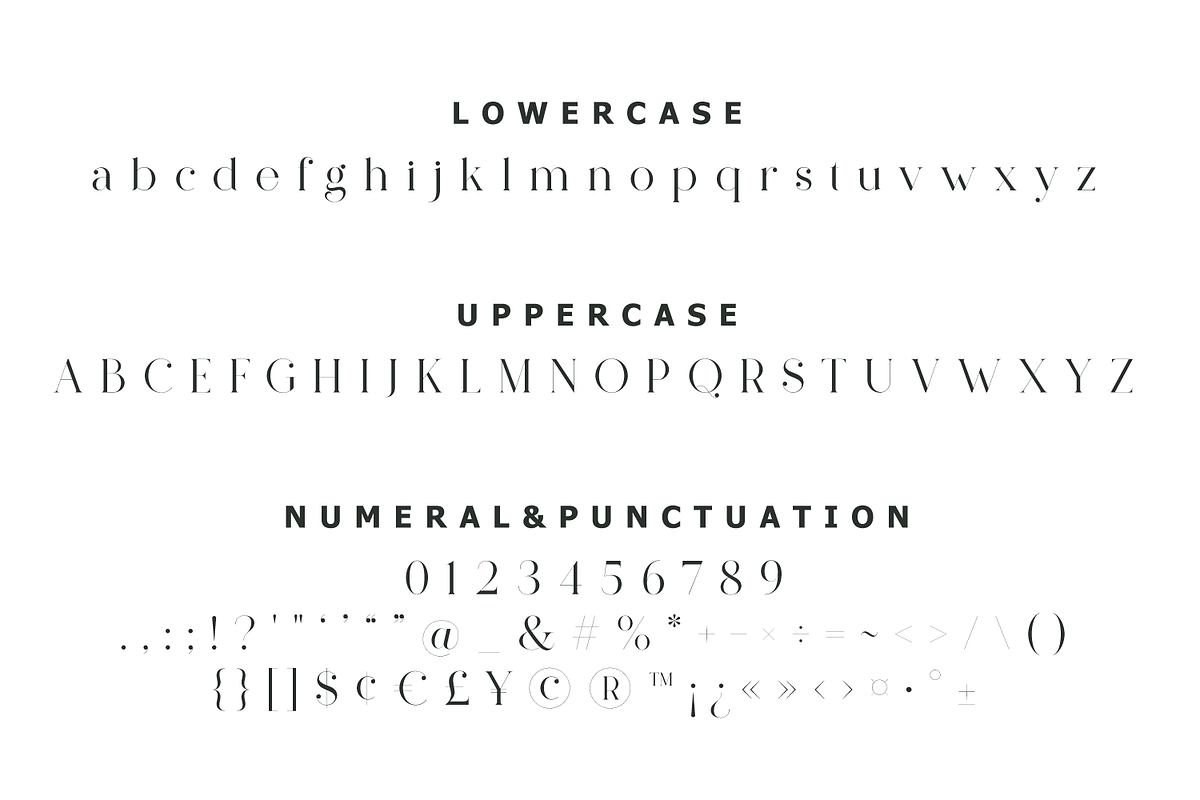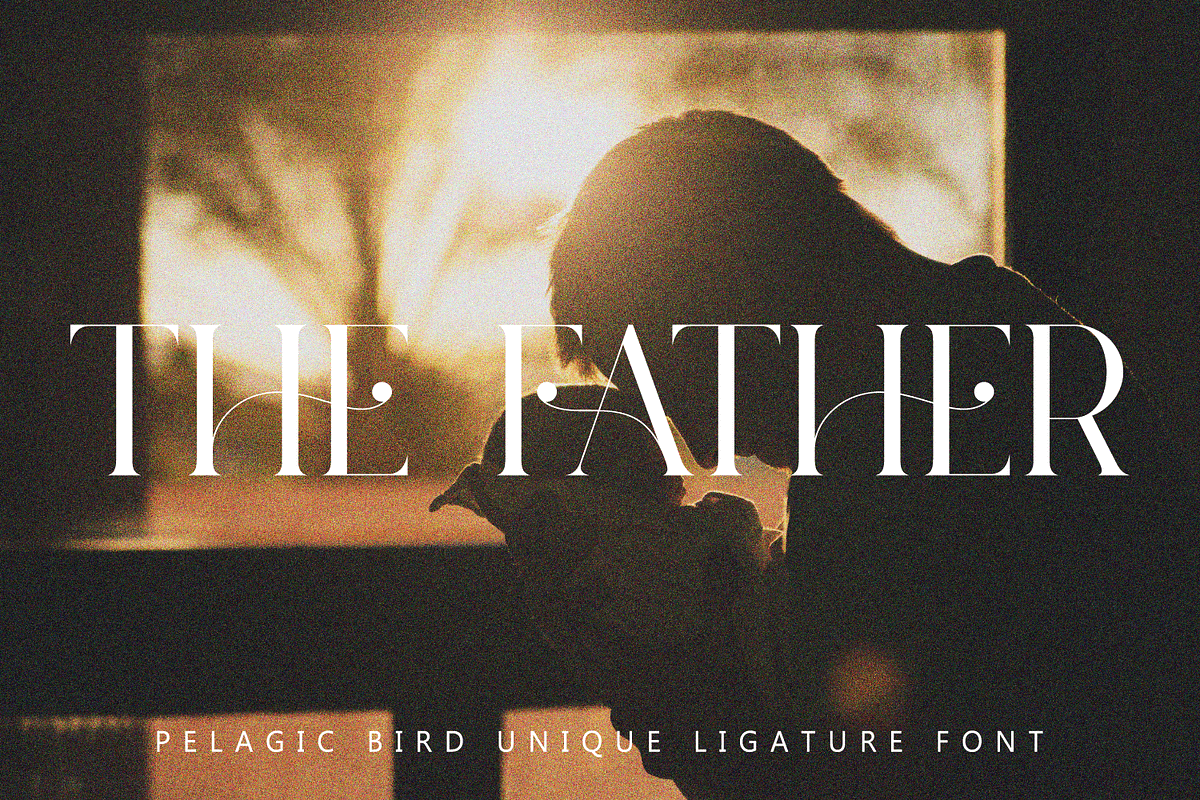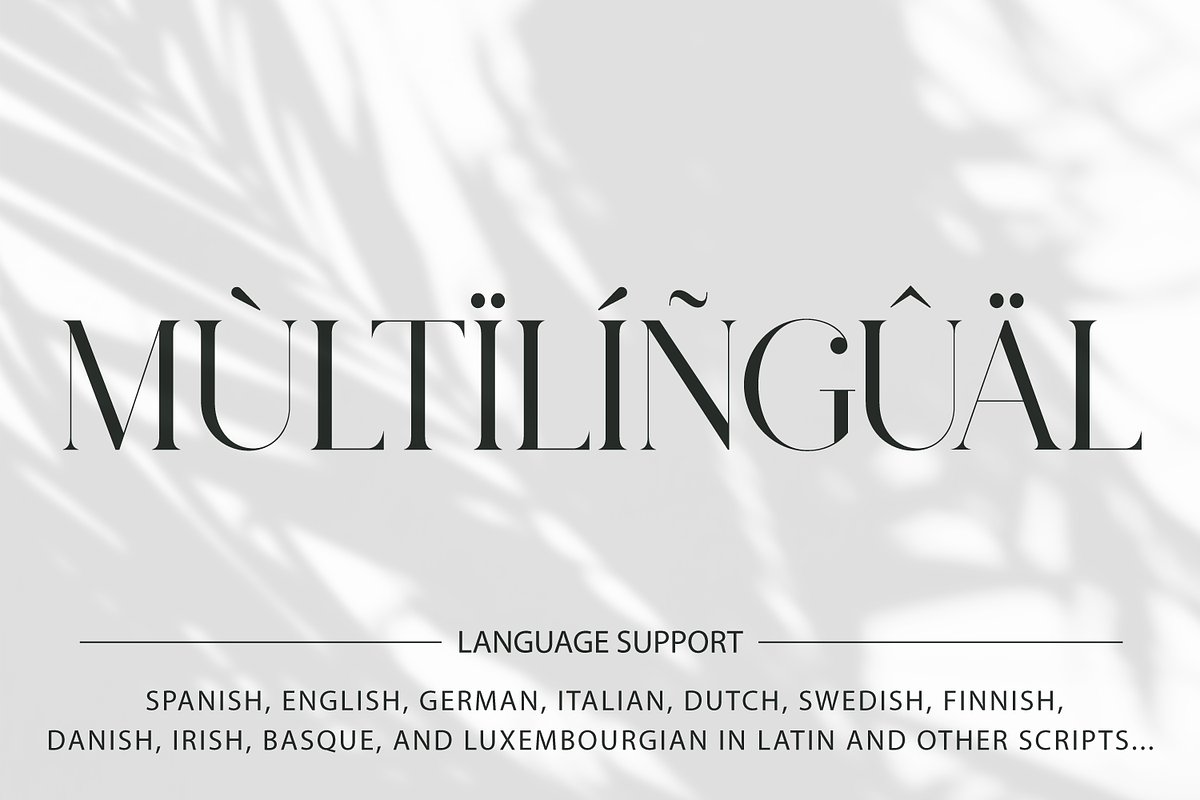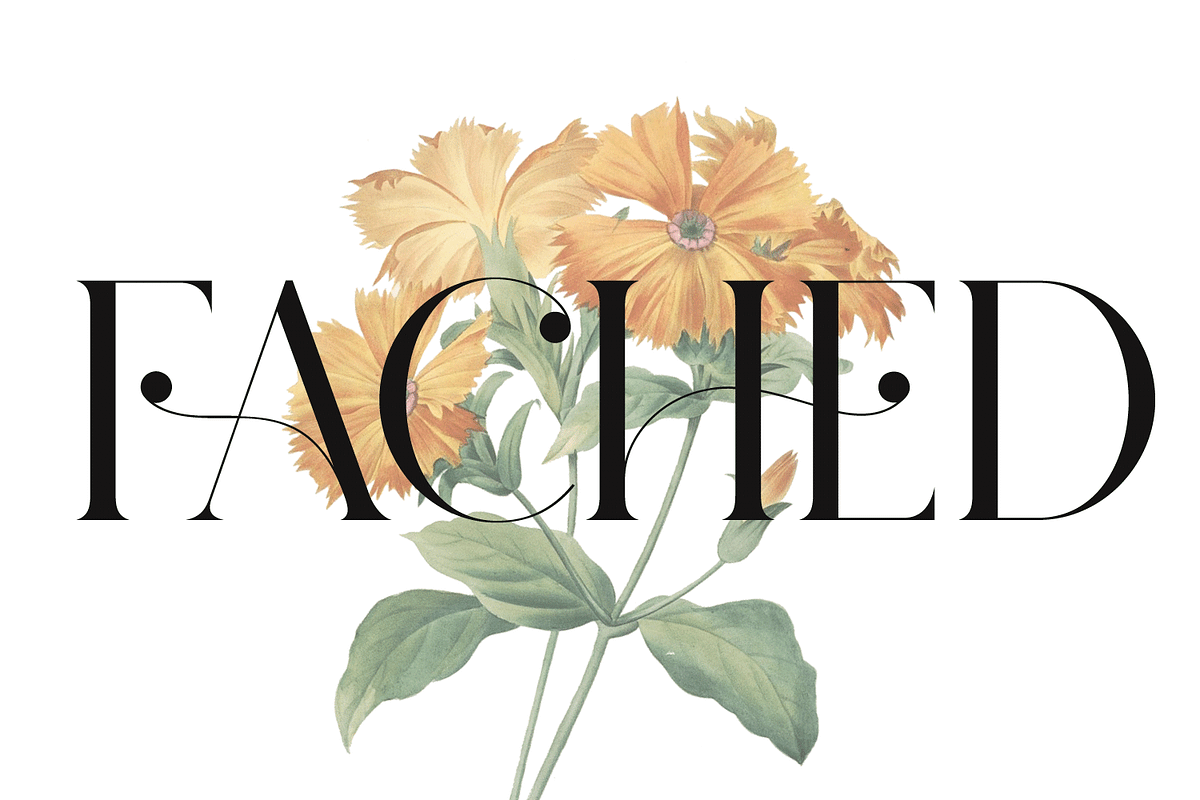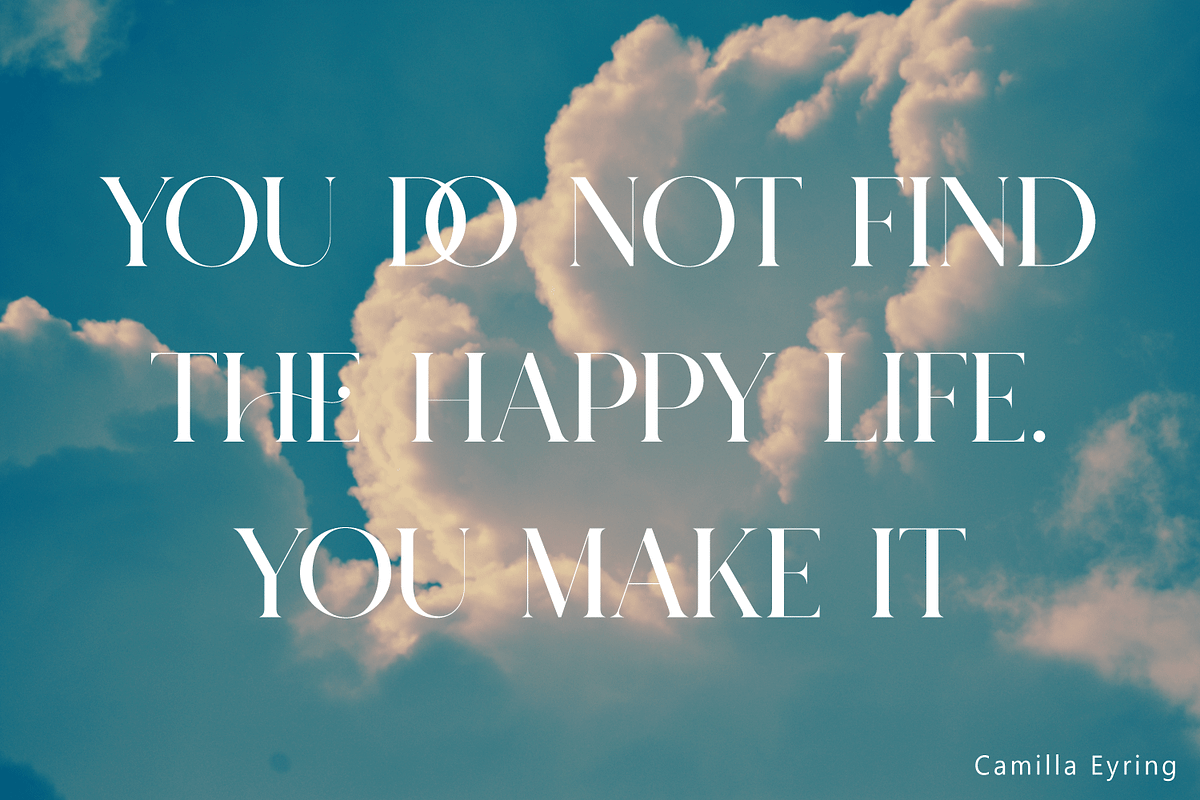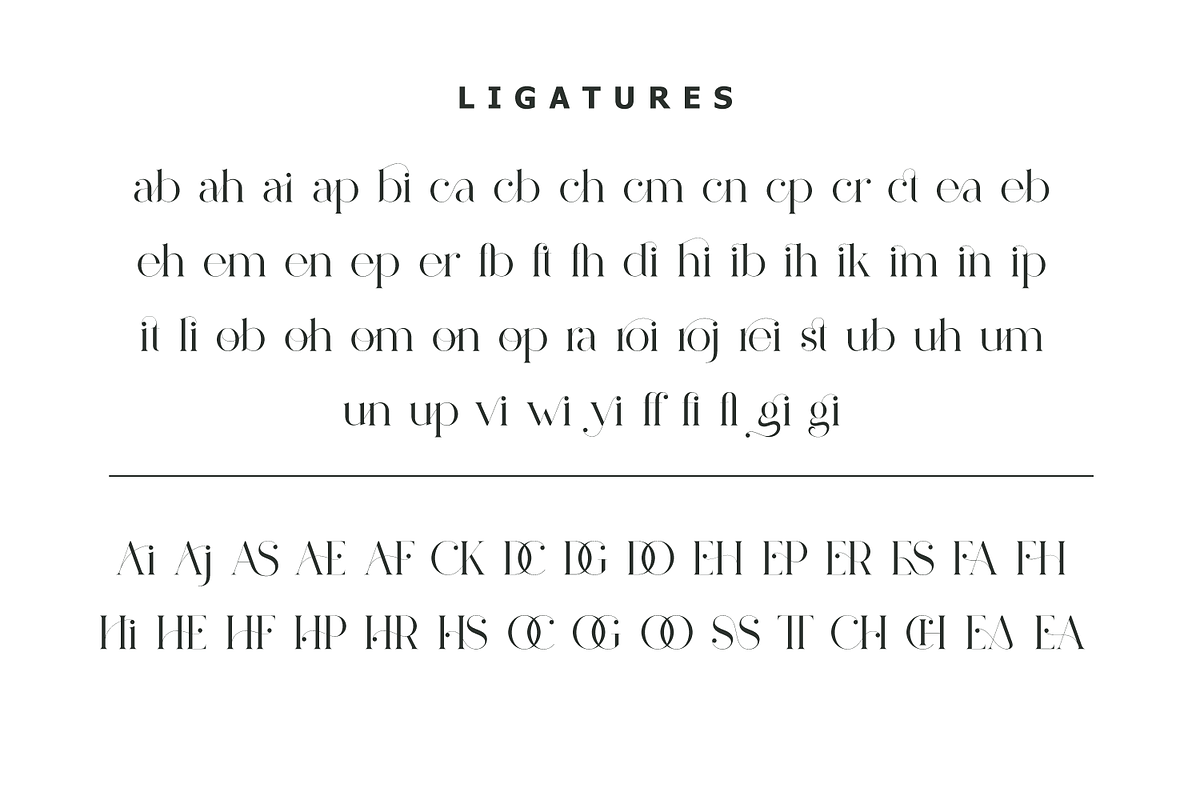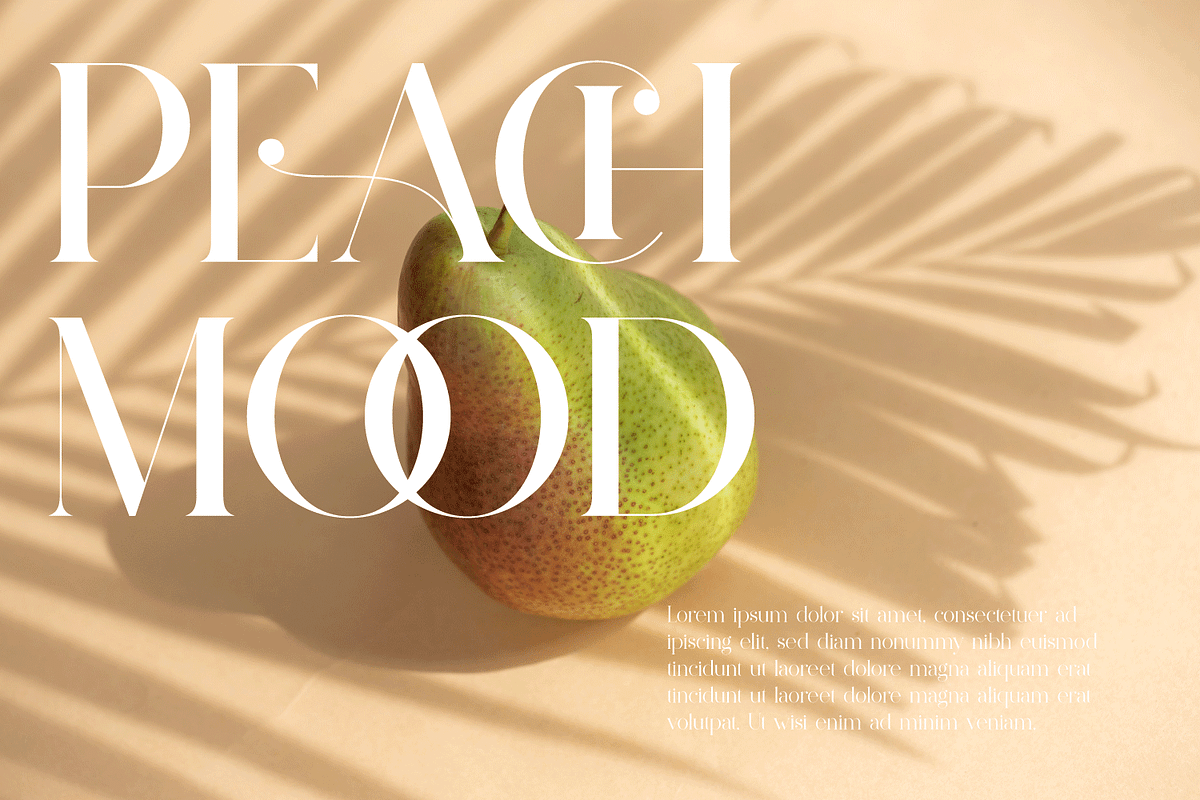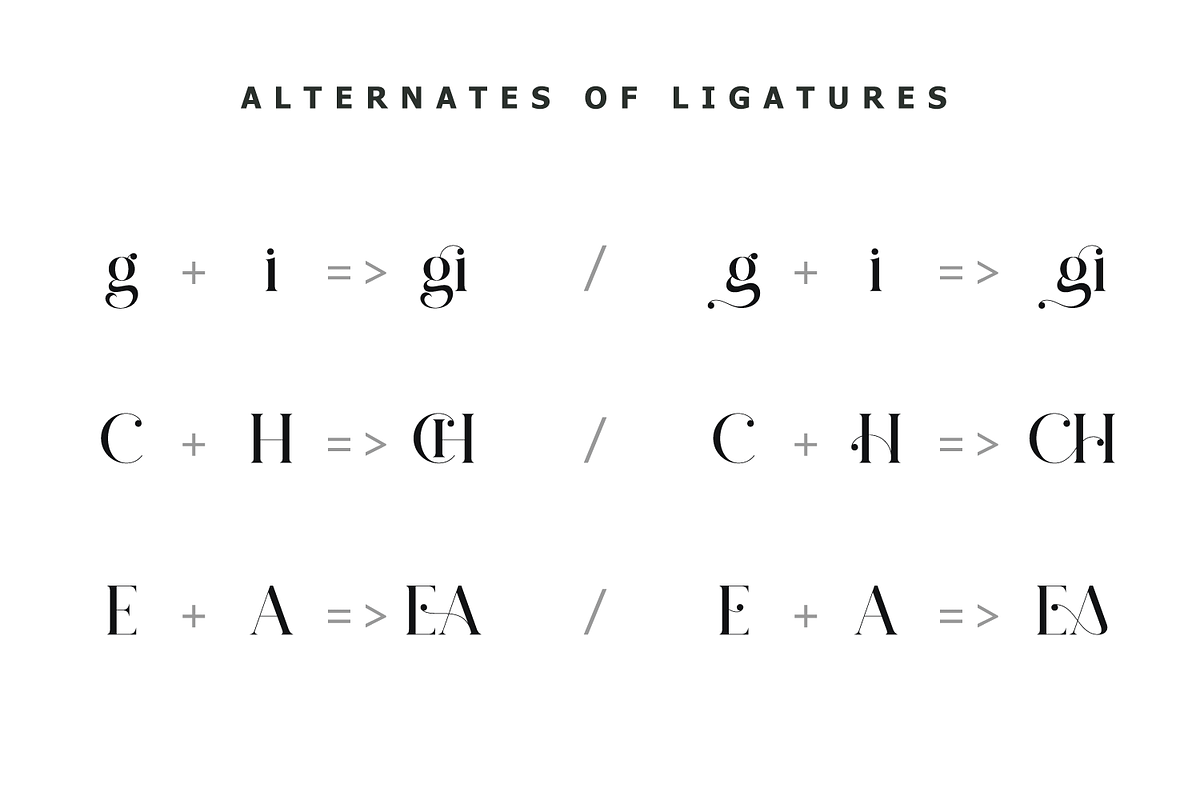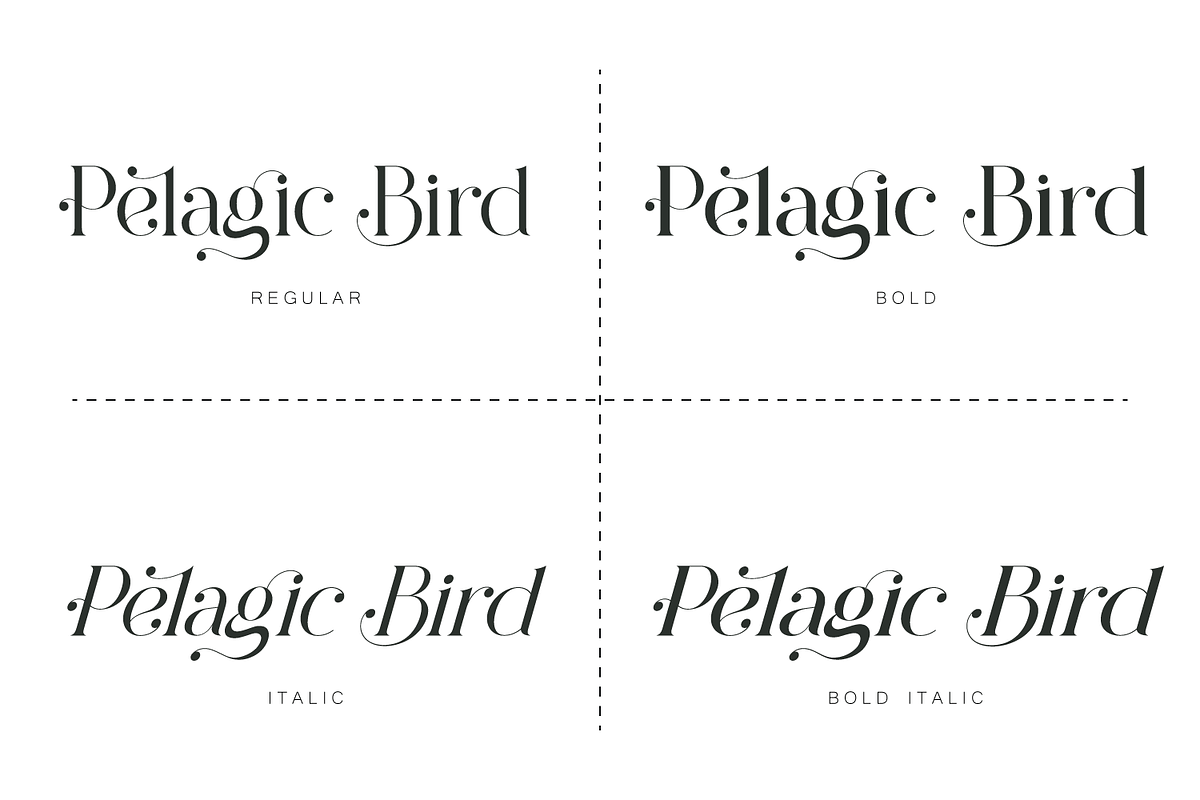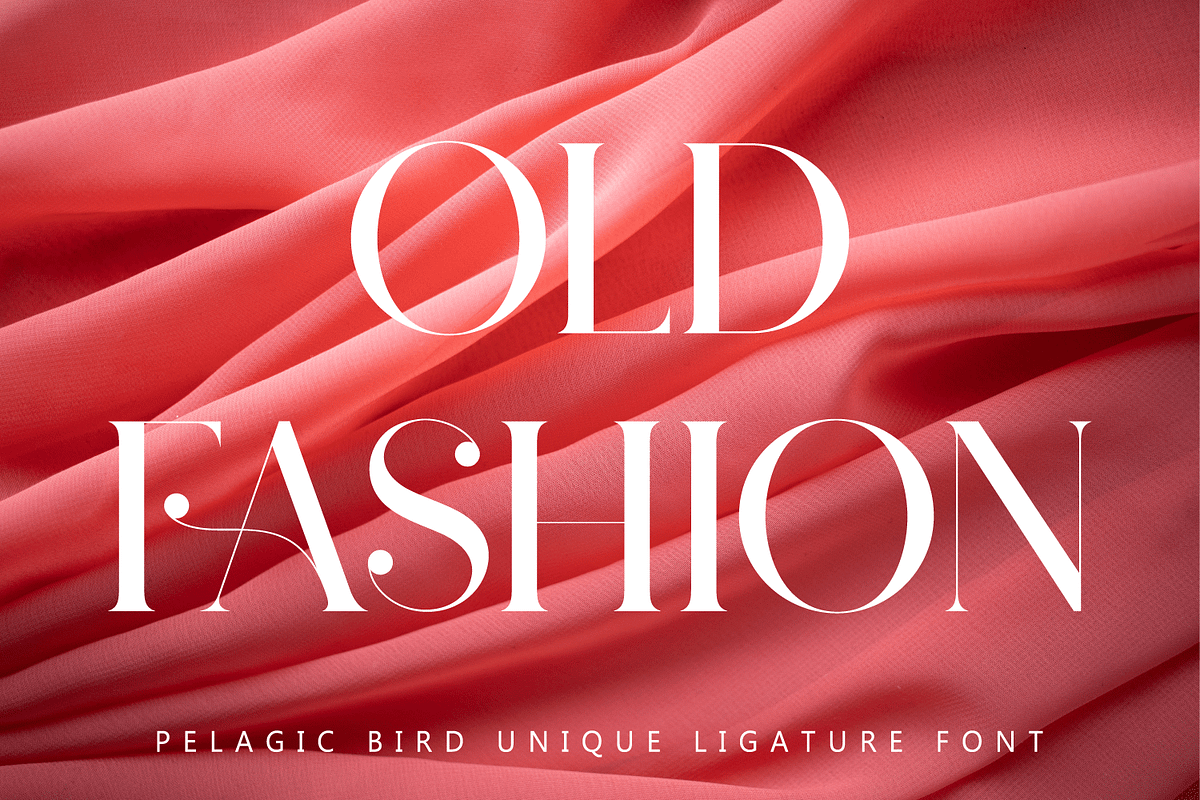
Pelagic Bird - Unique Ligature Font
Pelagic Bird is a unique ligature font. Clean, delicate, classic. Available in upper and lower cases with numeric, symbol, punctuation, and multilingual support.
Pelagic Bird will be perfect for many projects: logo, wedding designs, social media posts, advertisements, product packaging, product designs, label, photography, watermark, invitation, or whatever project you’re working on.
- Numbers, punctuation
- Ligature & Huge Stylistic alternate
- Multilingual support.